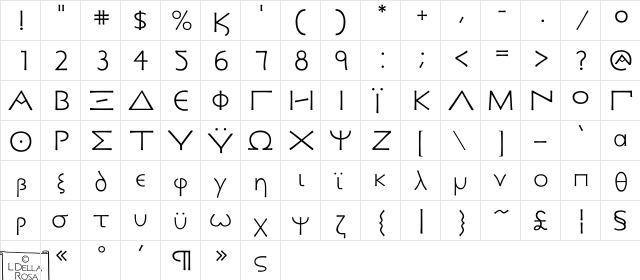
Greek Sigismundus Regular
Design Context for Greek Sigismundus Typeface
Greek Sigismundus takes a measured approach to typography — its balanced proportions and neutral character make it a reliable workhorse for both digital and print work.